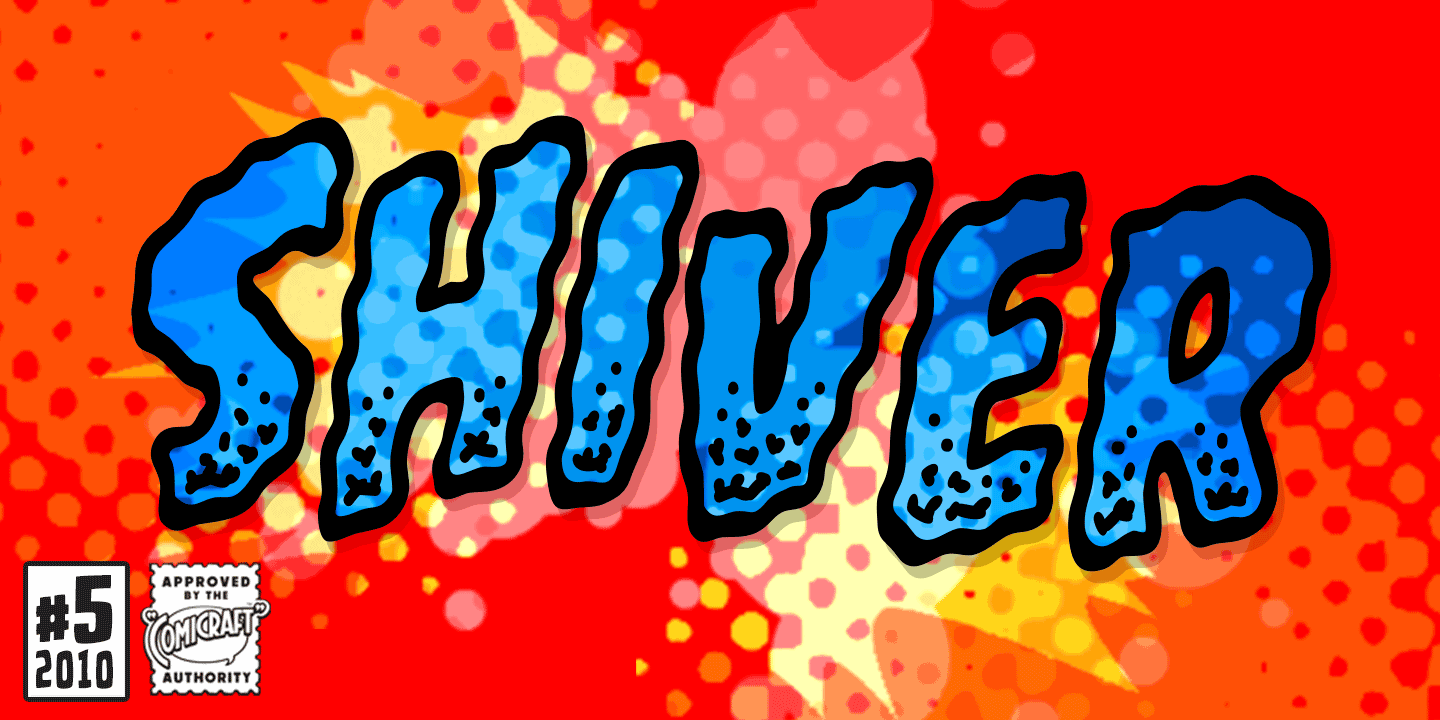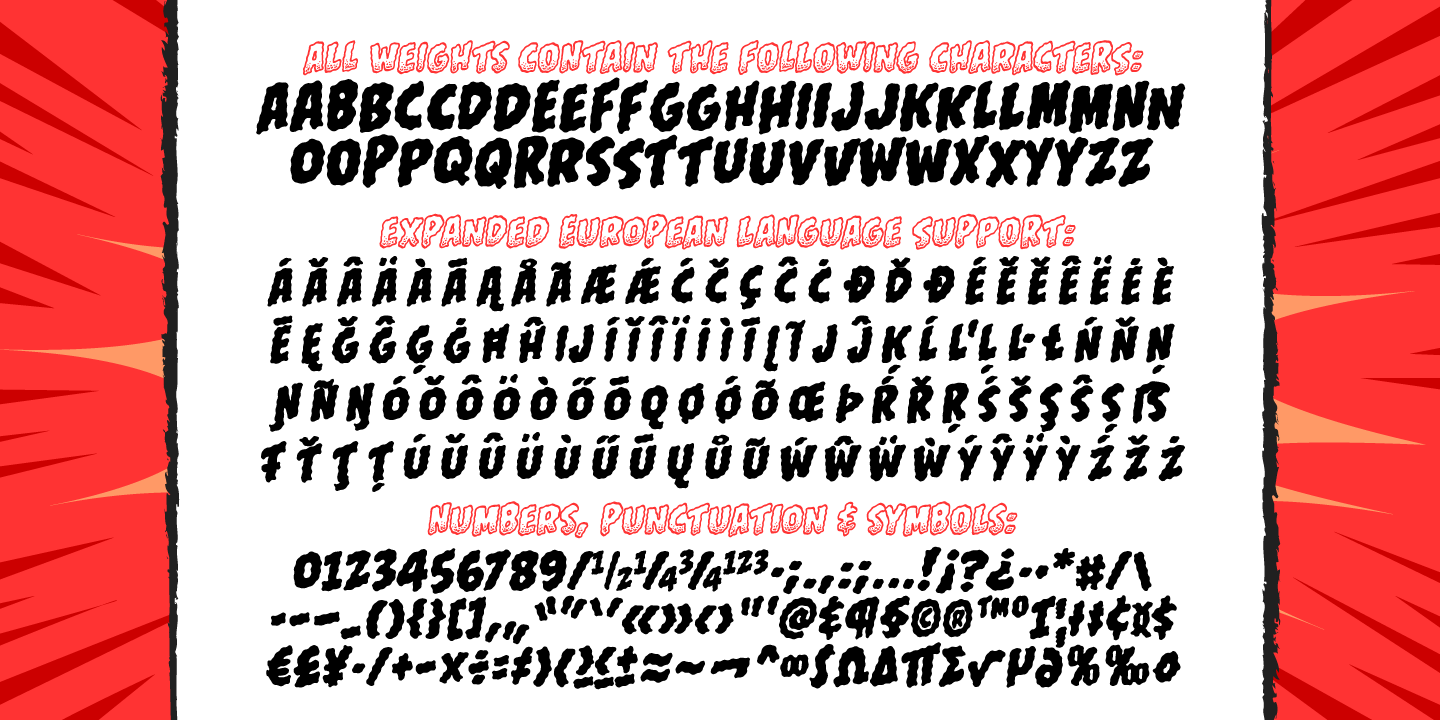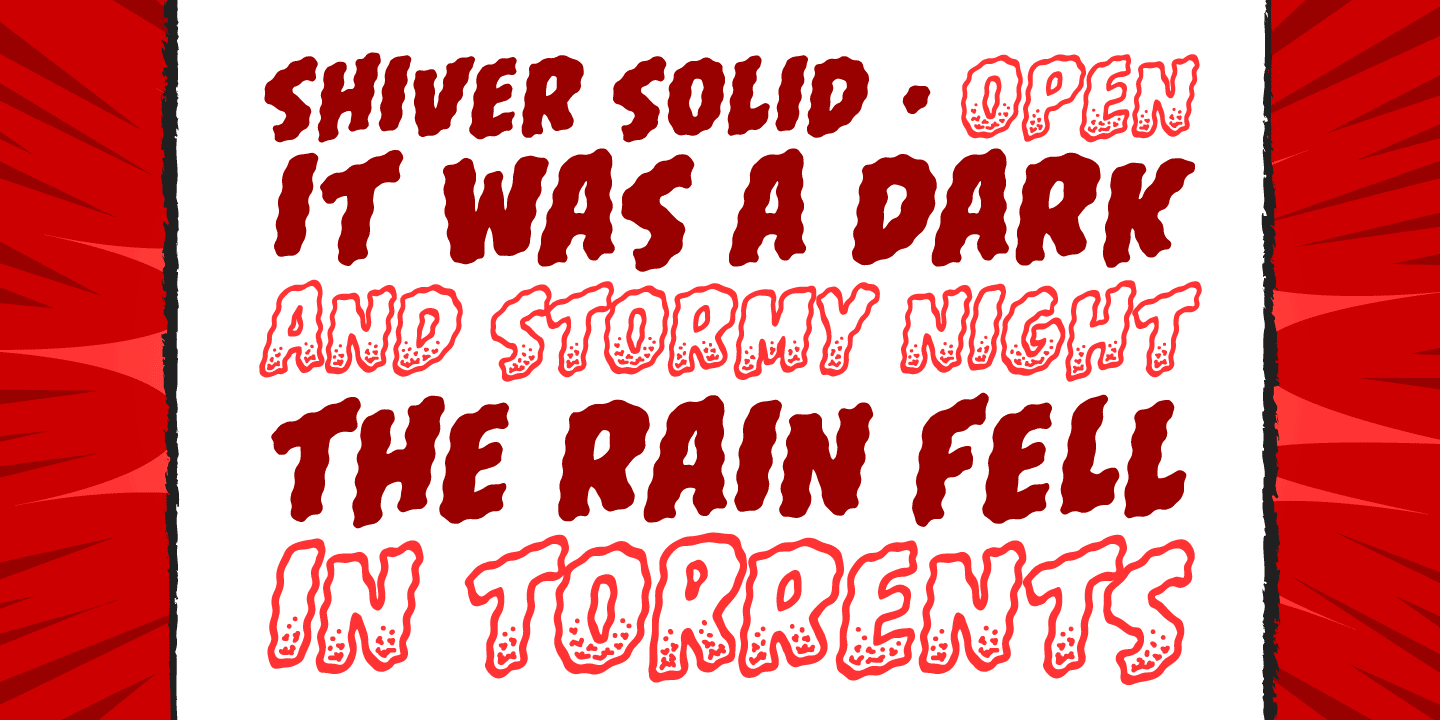
Shiver
Is your character vibrating slightly or feeling shuddering feverishly, as if from fear or excitement? Is he or she a warm-blooded animal experiencing the early onset hypothermia? Is your protagonist experiencing a pleasurable sensation of anticipation ,or maybe he/she has a fragment or splinter of glass or stone in the tip of his/her finger?
Any which way, Comicraft now has the font for you to effectively convey the way your characters are feeling to comic book readers everywhere... It'll be just like they're listening to a track by Coldplay while trying to shake off the flu in a haunted house.